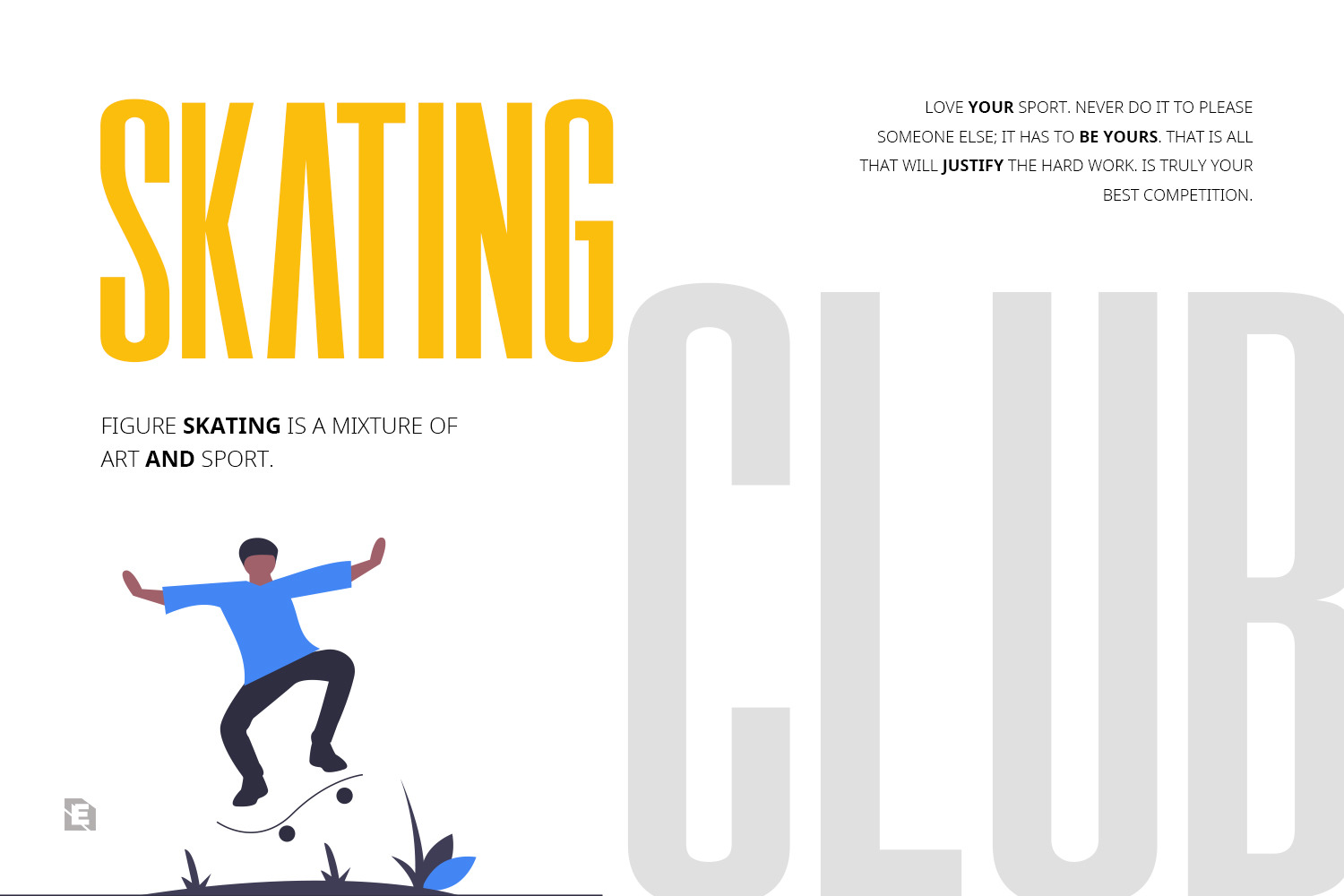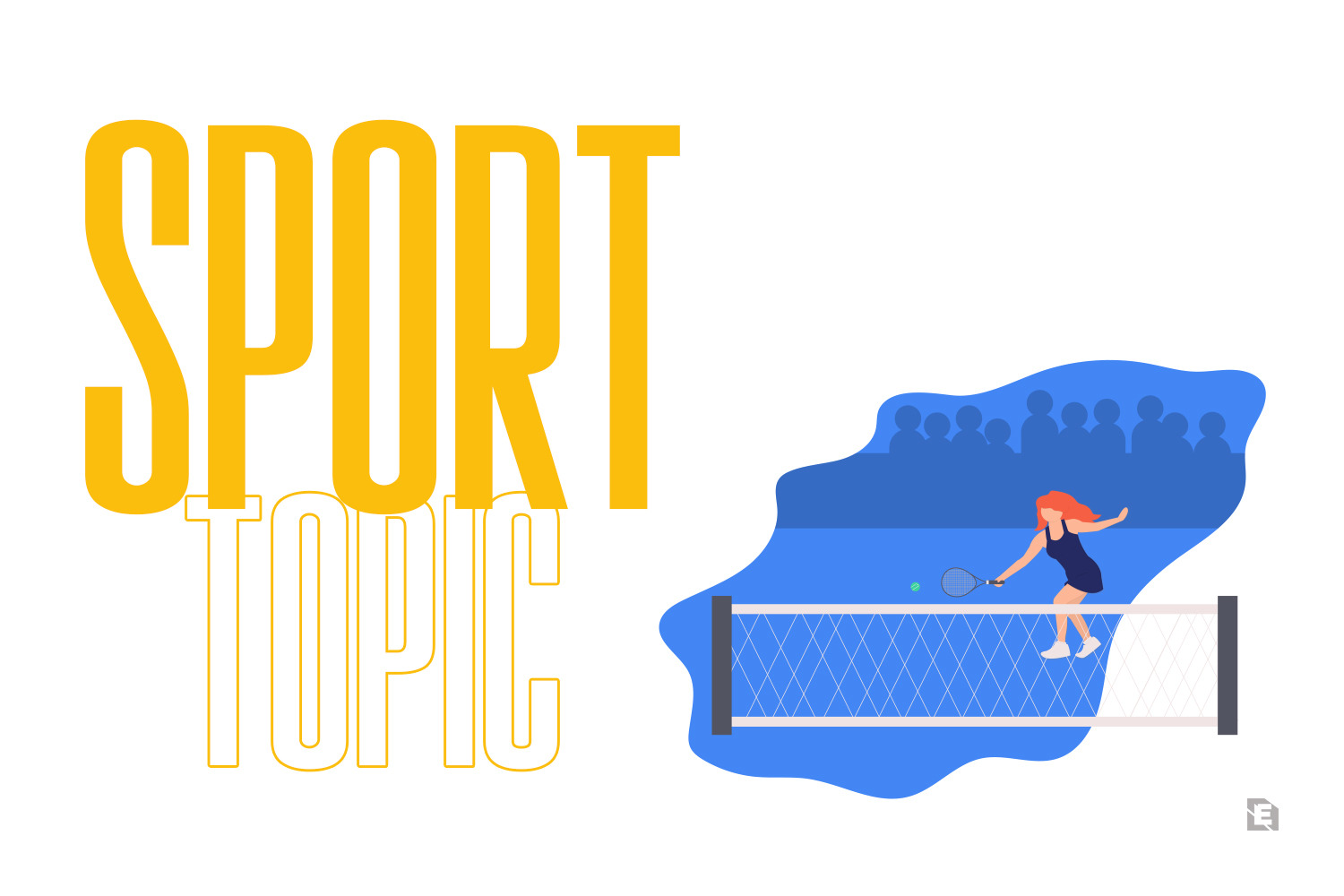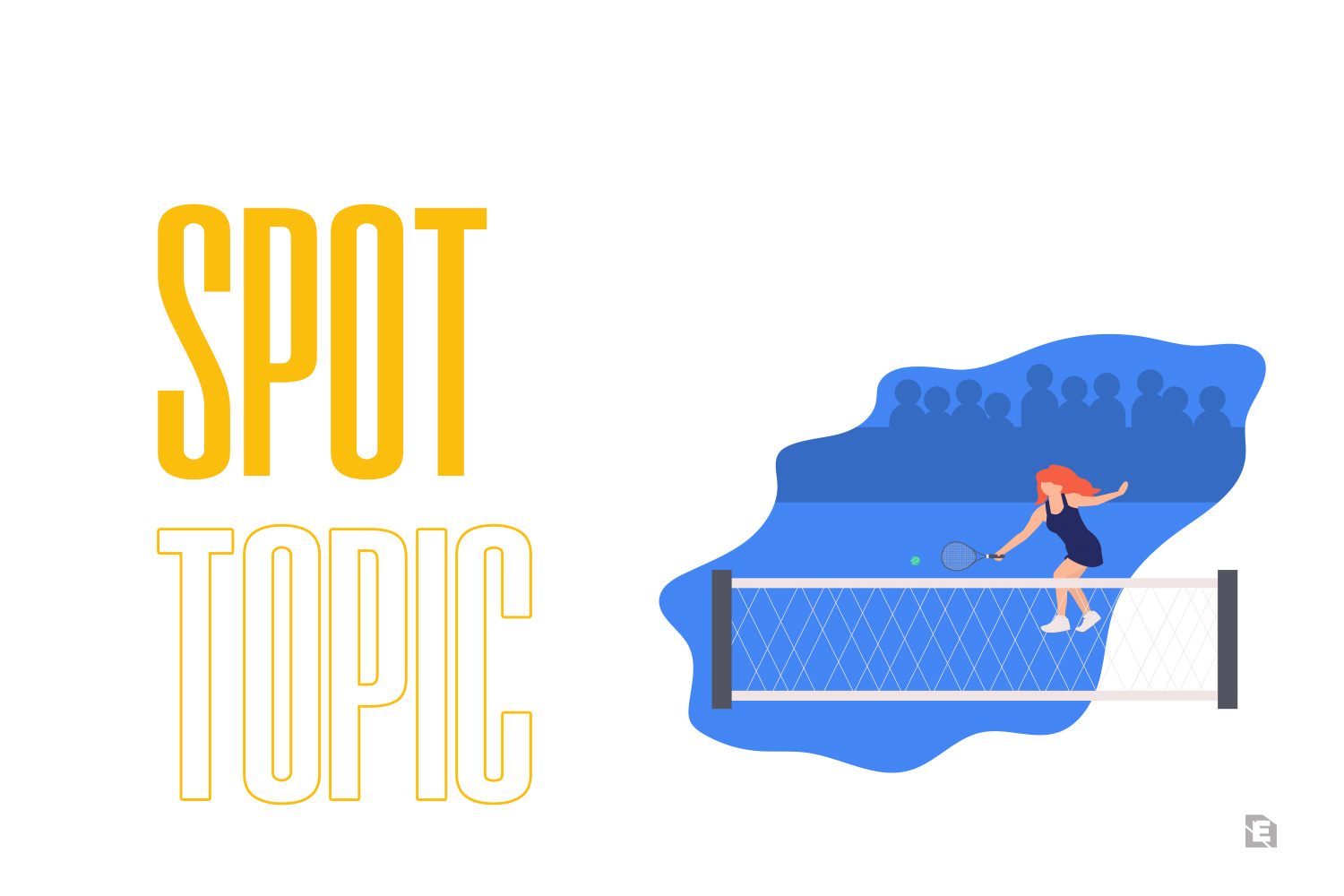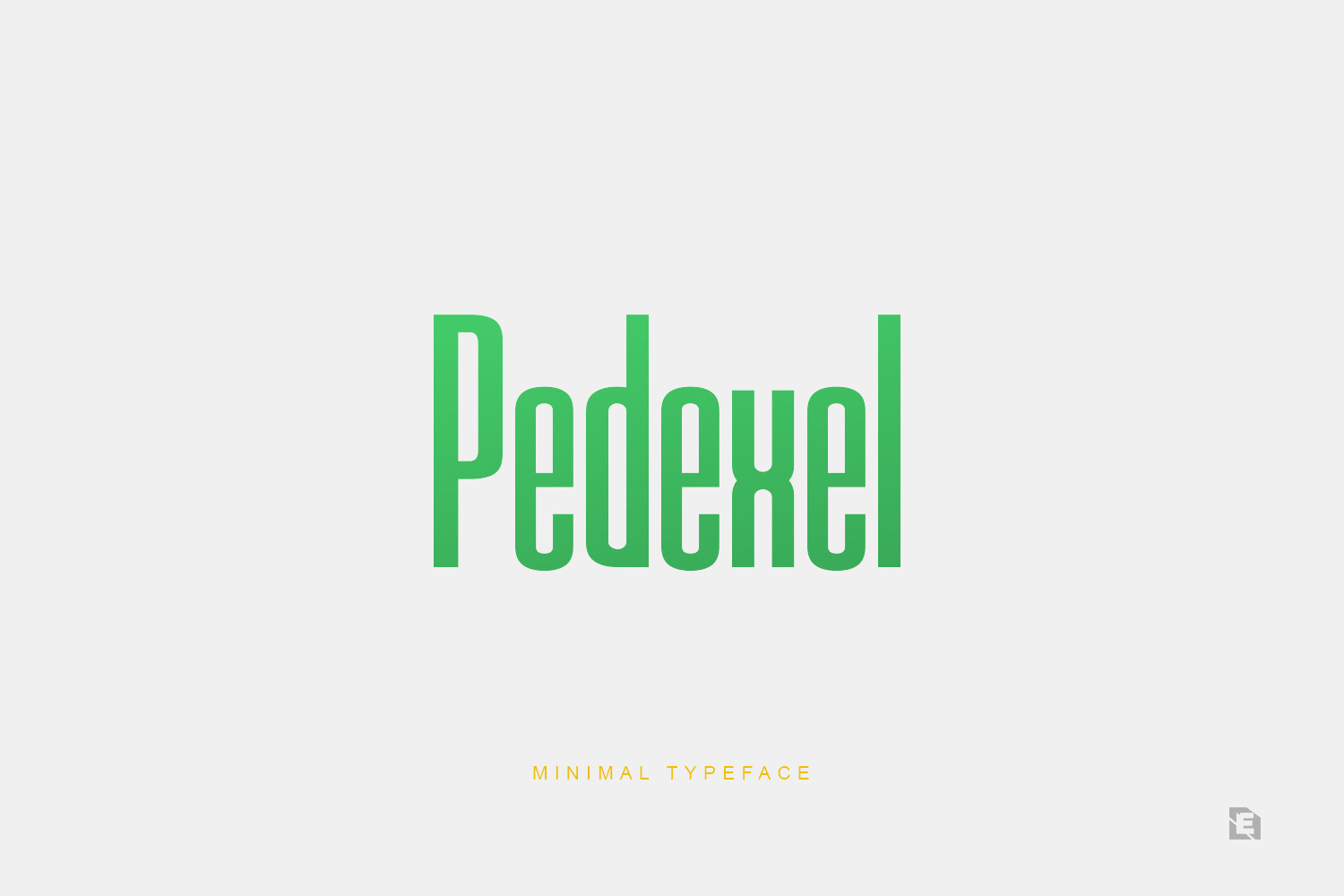
Pedexel Bonus Font
Pedexel Typeface is aMinimal Display typeface, unique and playful style that will help you decorate your design. This font is perfect for your branding projects, logo designs, magazine headers, t-shirt ads, website headers, and more.
This modern font is perfect if you are branding Sports banners. Its unique style will allow you to reveal your brand from a new angle. An expensive, brutal typeface will draw the eye of many customers to your brand.
You can easily use the font feature in many areas. You can create your text with normal characters and highlight bold characters and titles. In Pedexel Font Some letters will keep your design to make gorgeous.
This font has 200 above glyphs and extensive Latin script support and upper and lowercase sans serif characters. It carries a powerful, unique, and social character line with a premium finish, giving a new impression. Add it confidently to your favorite creations and let yourself be amazed by the outcome generated.